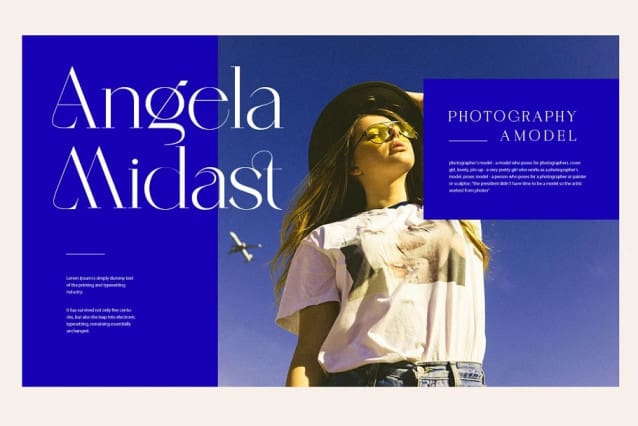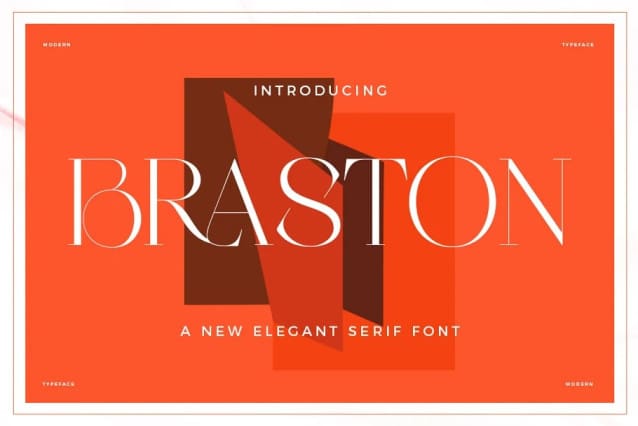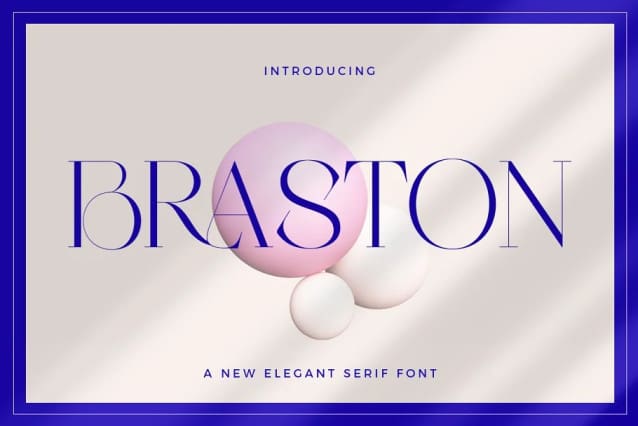
Braston Font
Braston Font – a modern, unique and decorative serif typeface that comes with a binder and alternative characters that are perfect for creating variety in your designs.
Braston is a mix of sweet curves with lowercase sets and strong impact fonts for uppercase sets making it even more elegant this typeface will allow you to create stunning and original layouts for print and web, Branding, Logo Design, invitations, quotes, blog headers , posters and advertisements. use it endlessly.